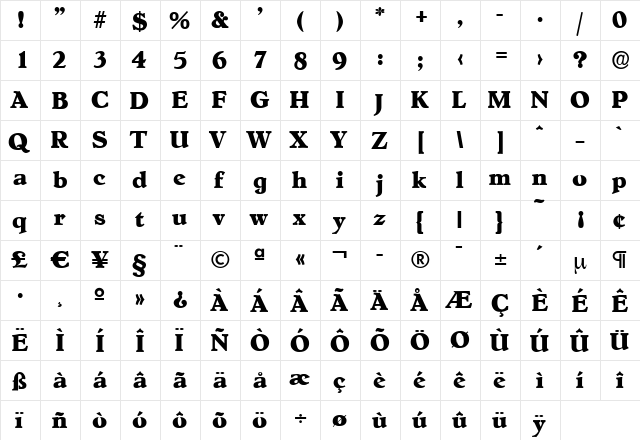
LucasBecker-ExtraBold Regular
LucasBecker-ExtraBold is a composed and adaptable typeface that performs quietly and consistently across a wide range of design contexts. The heavy weight commands attention and anchors typographic hierarchies.